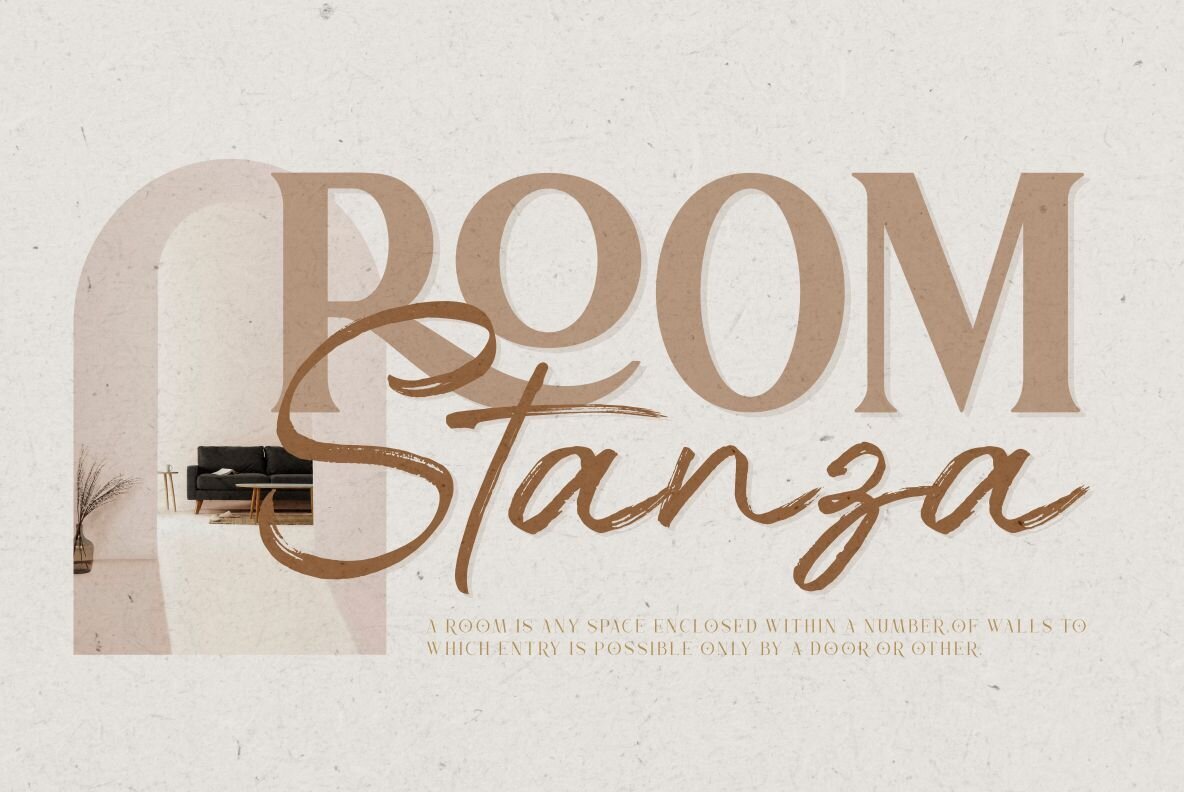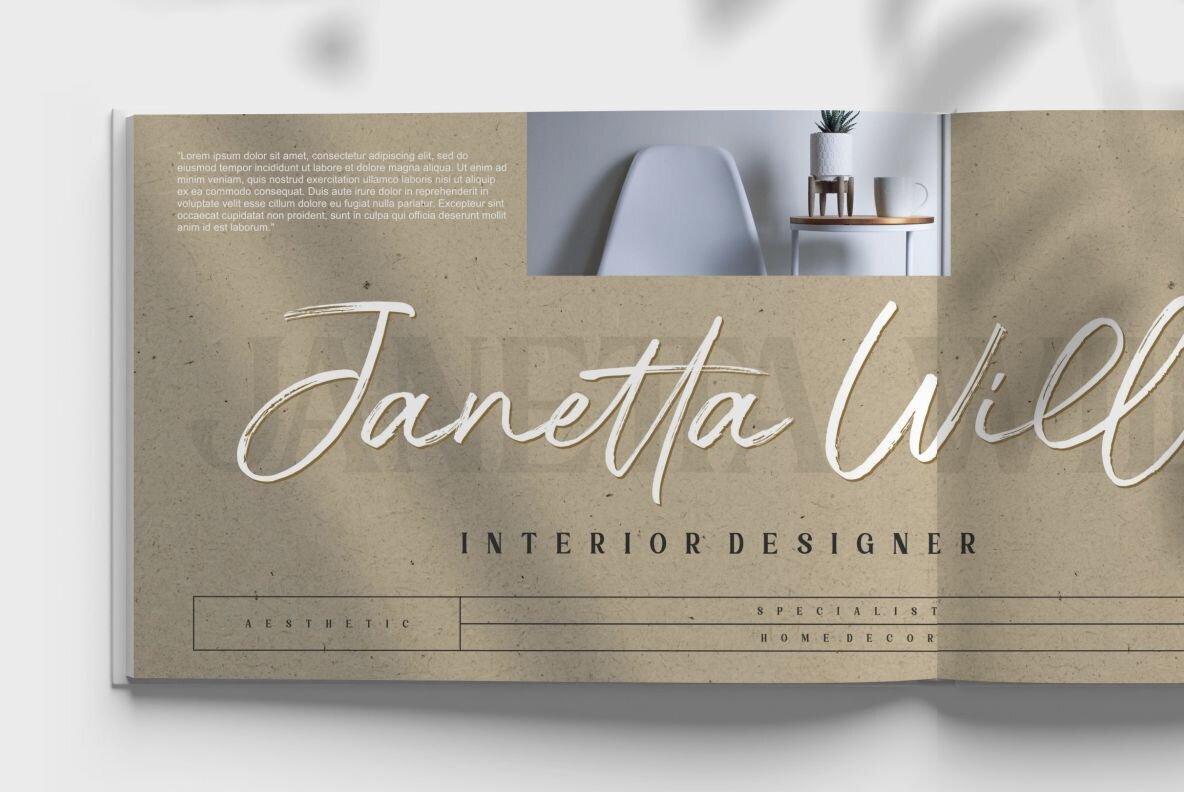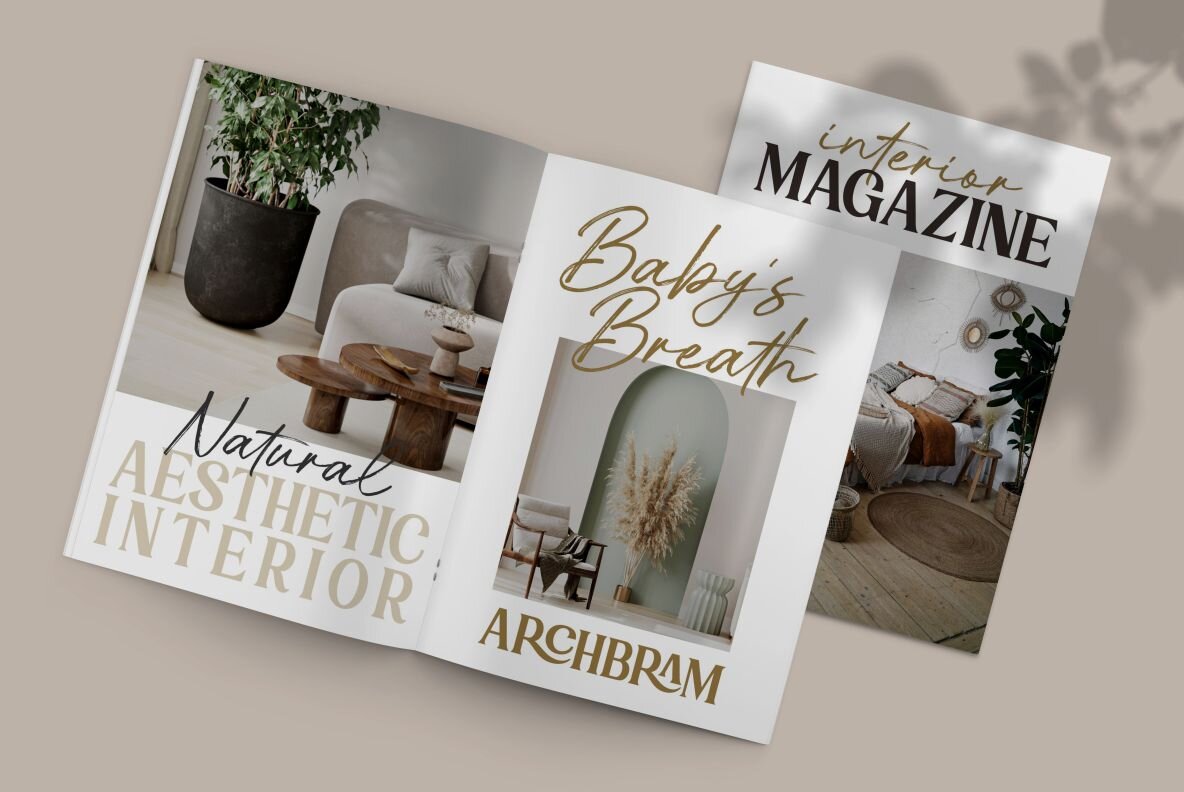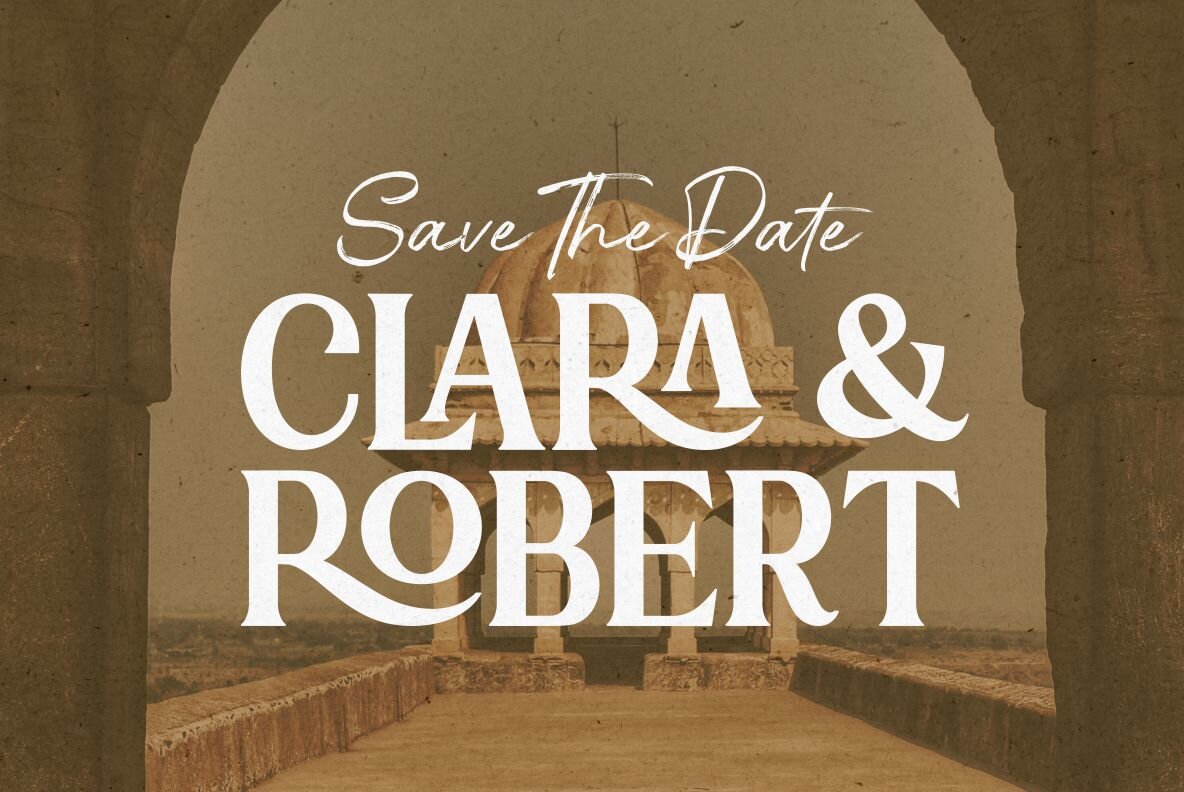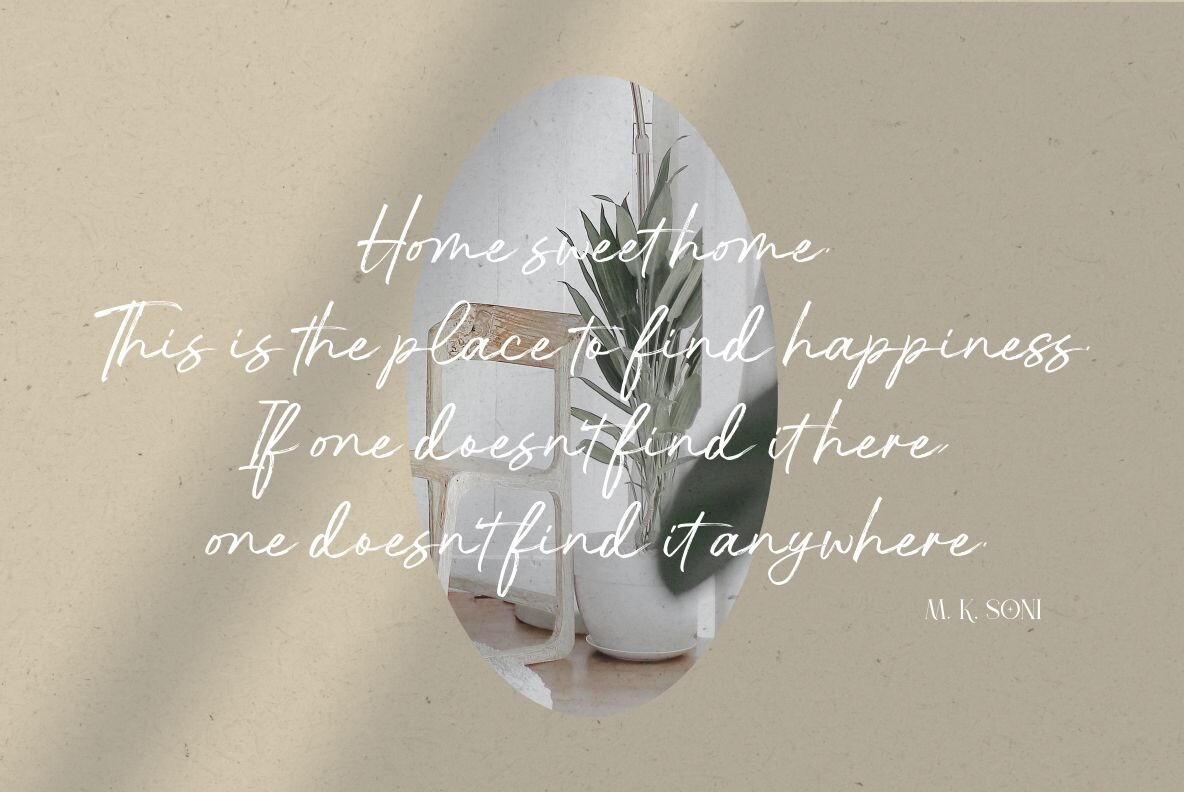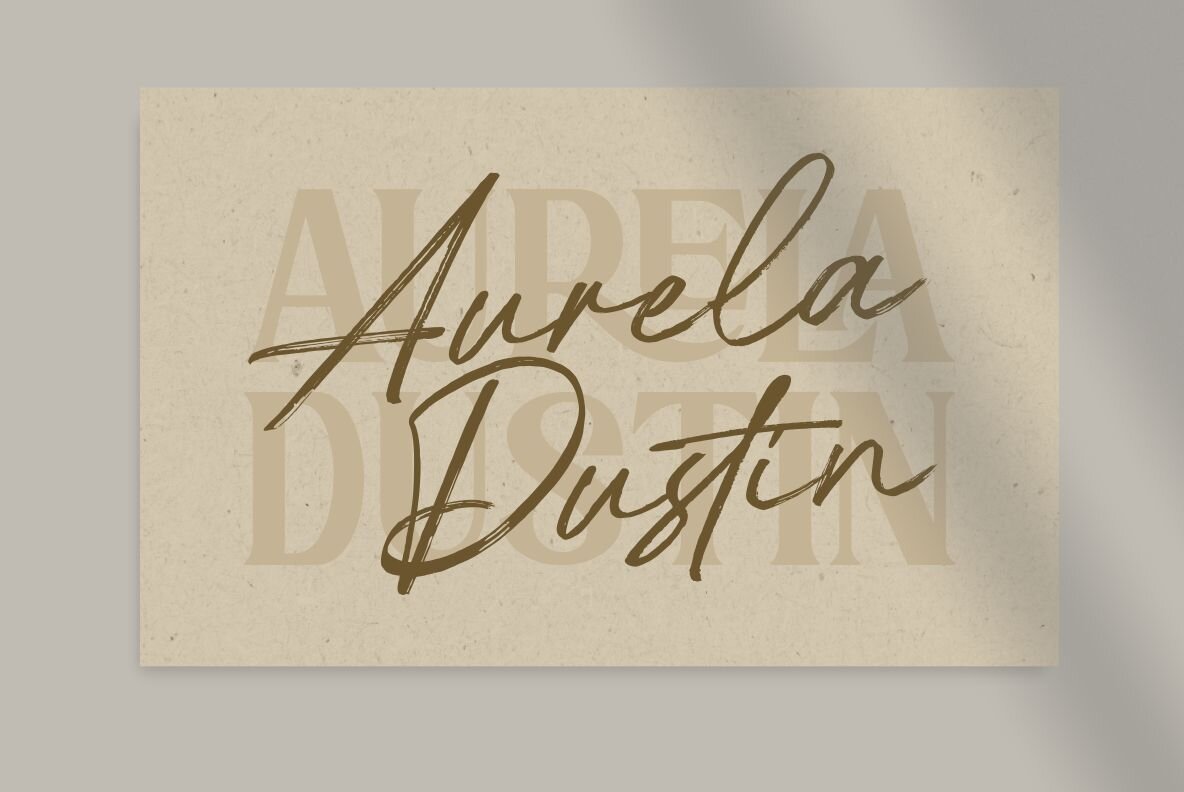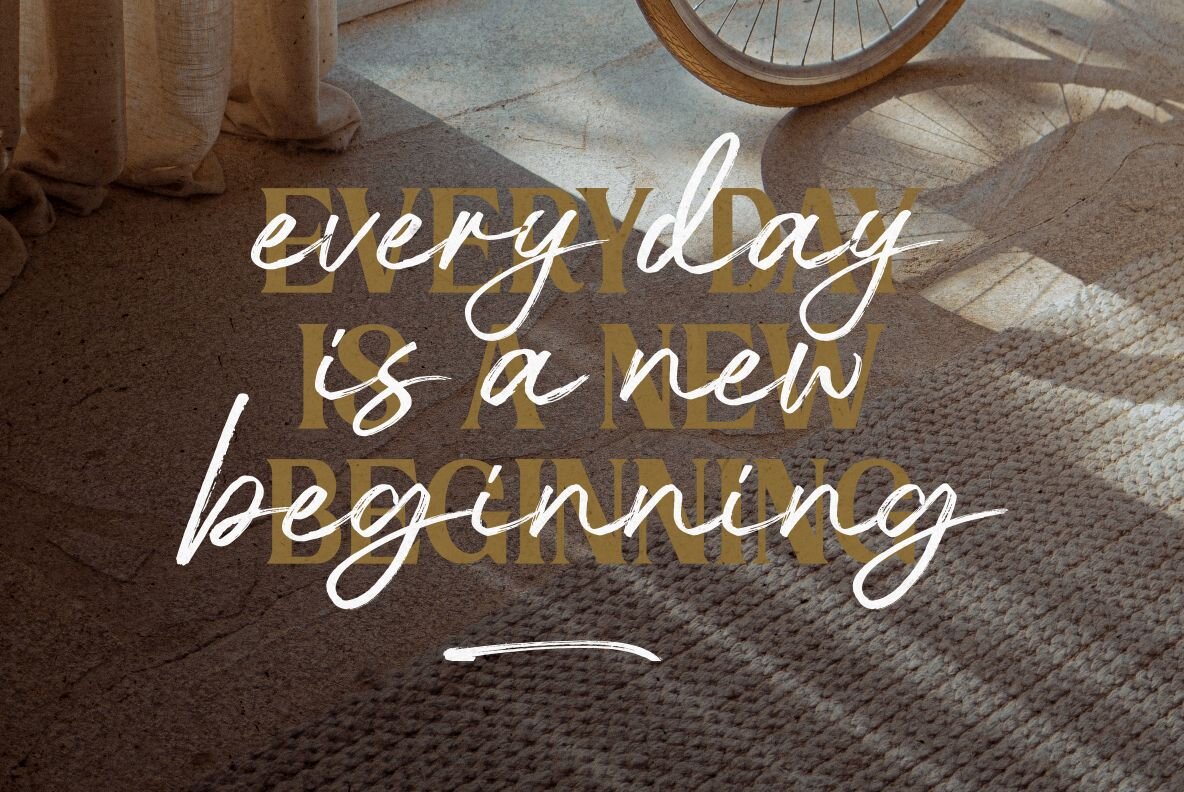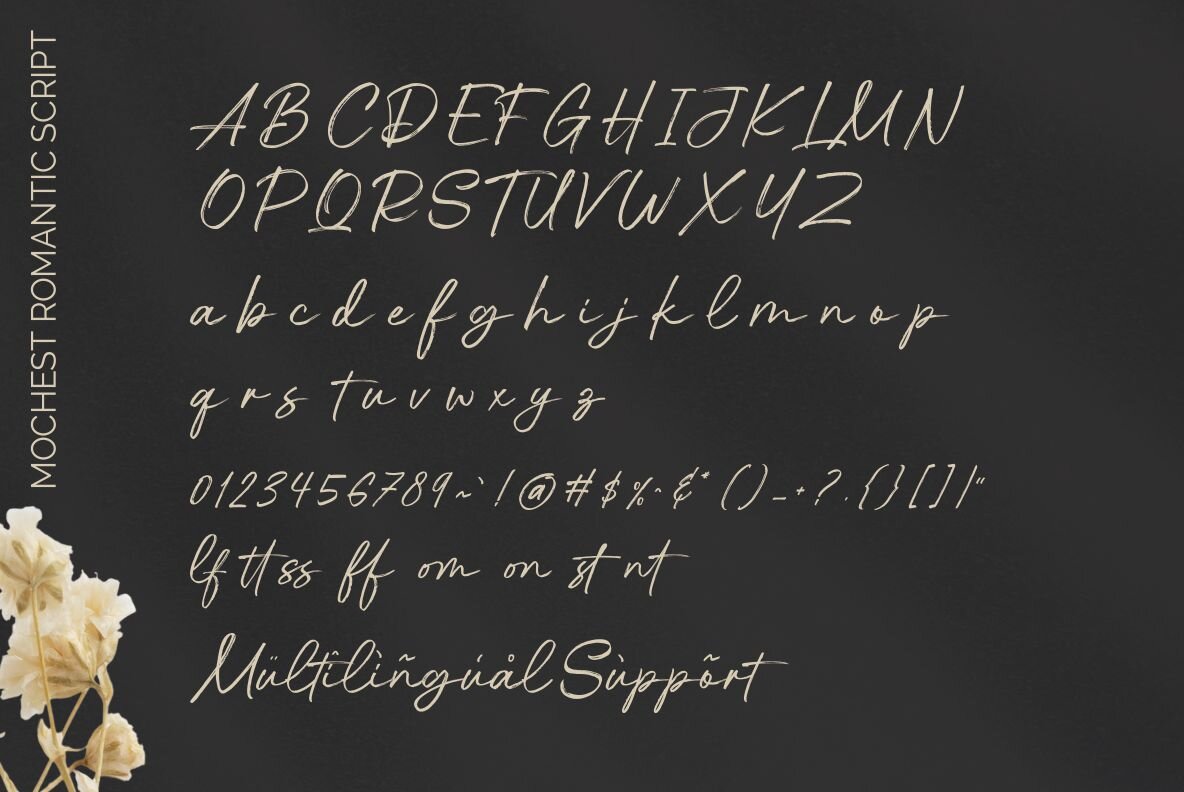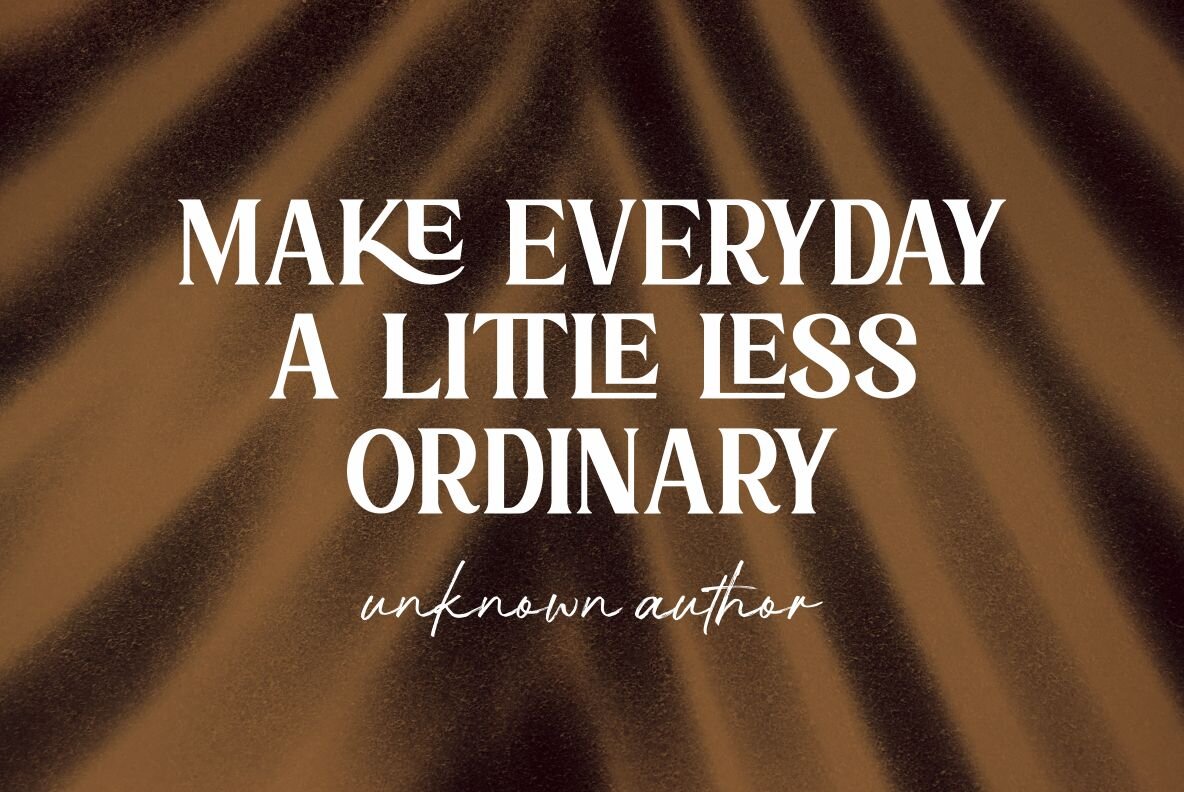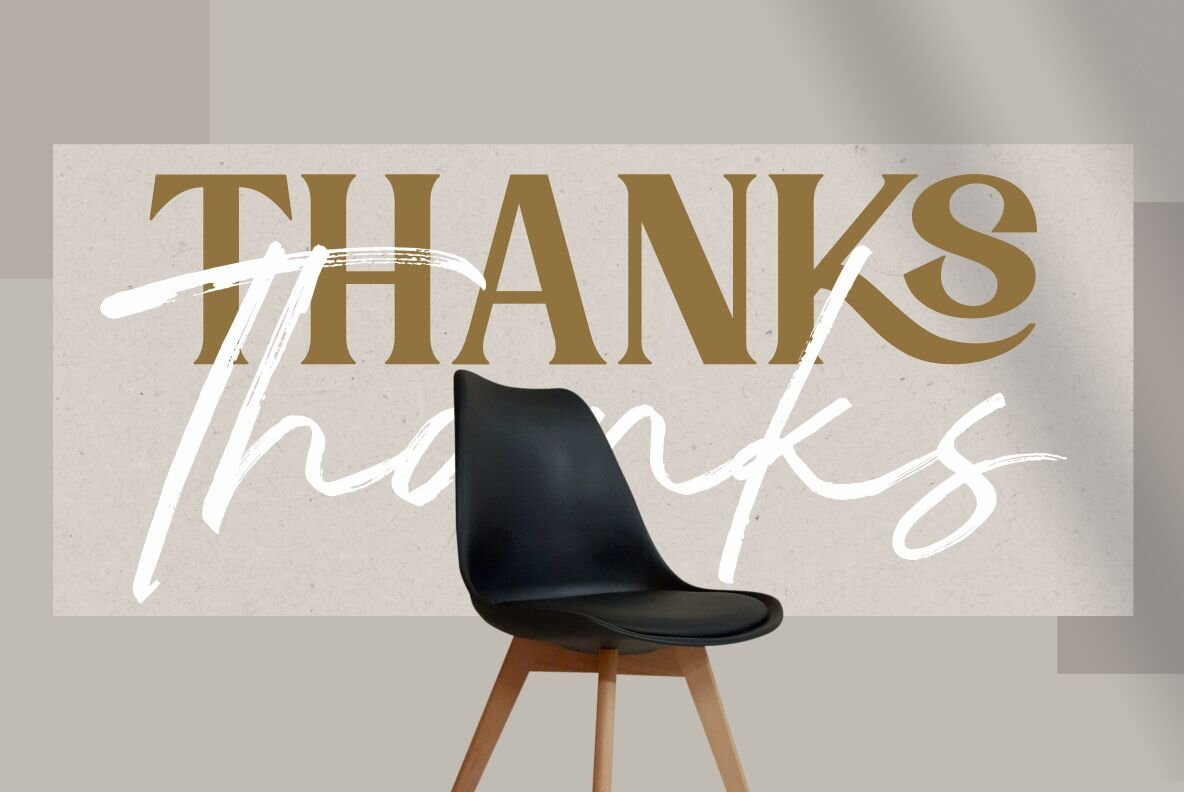
Mochest Romantic Font
Mochest Romantic Script
Mochest Romantic Serif
Introducing Mochest Romantic, the perfect font for luxury brands and high-end products. With its carefully crafted serif and script fonts, this typeface exudes premium quality and sophistication. The unique ligatures on the script font make Mochest Romantic stand out from the crowd, making it ideal for headlines, logos, posters, packaging, Ttshirts, coffee shops, restaurants, magazine headers, signs and gift/post cards.
Whether you're branding a cafe or wedding business, Mochest Romantic is the perfect choice for your marketing needs.
- Mochest Romantic include, numbers, punctuation, alternates, and it also supports other languages
- Mochest Romantic it also supports multilingual